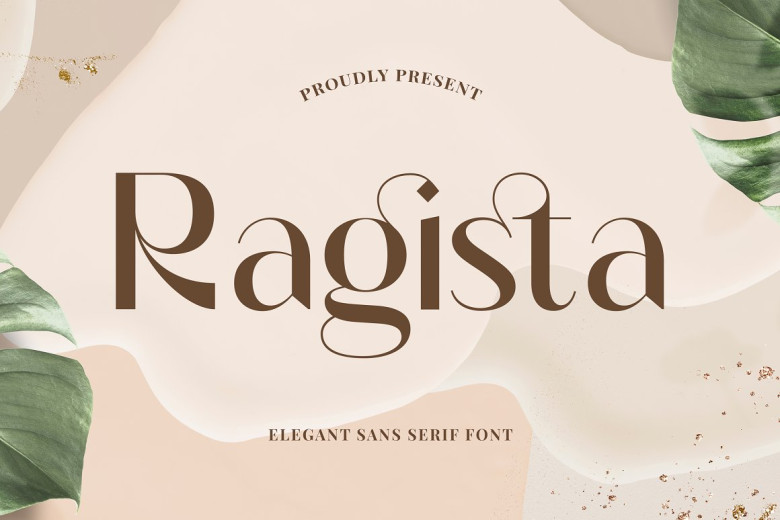
Ragista Font
Ragista is a unique Sans Serif typeface. It uses ligatures that smoothly link letters together and make up for what’s lost from conventional fonts. It is suitable for word mark logos, monograms, or pull quotes designed to print on garments or printed publications.
Ragista has twenty-six ligatures, three alternates in roman size forms for total usage of three styles. The numbers and punctuation marks with the second character are included making it the most different in terms of versatility. If you are editing on the Web a (· combination) diacritic is attached especially helpful for numerical characters.
Ragista Sans Serif Font